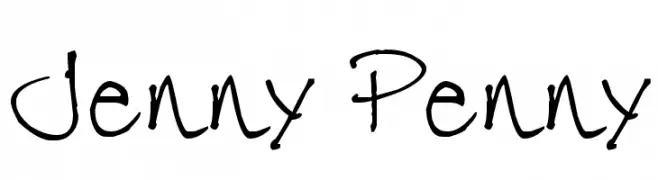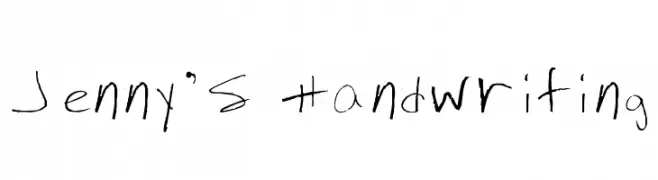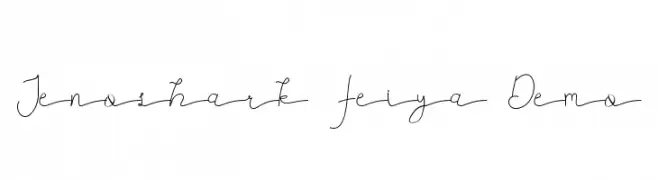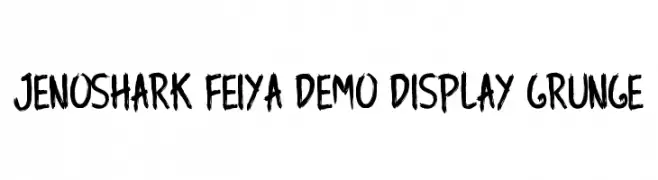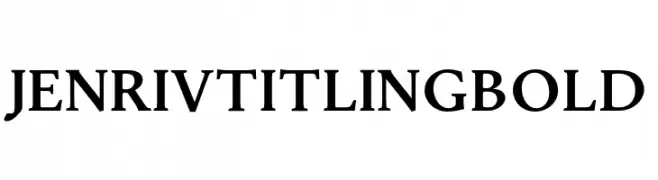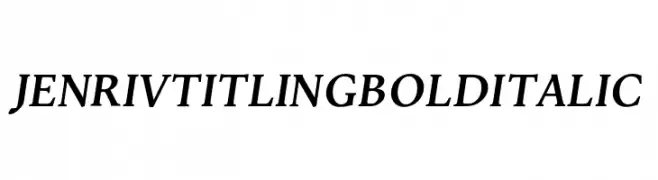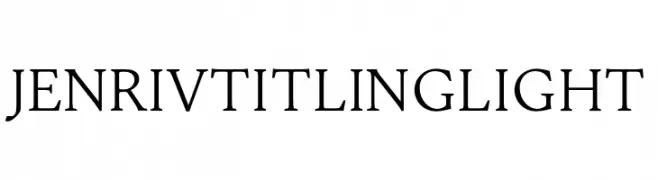
A playful, casual handwritten font with fluid strokes and expressive characters.
A casual, handwritten font with an authentic, personal touch.
A graceful script font with elegant, flowing strokes and a modern calligraphic style.
A bold, grunge-style font with a hand-drawn, distressed appearance.
A classic serif typeface with elegant curves and balanced contrast.
A bold, classic serif font with strong, elegant strokes.
A bold, italicized font with elegant curves and strong visual impact.
An elegant serif italic font with a classic and refined style.
A classic serif font with elegant, refined characters and delicate serifs.